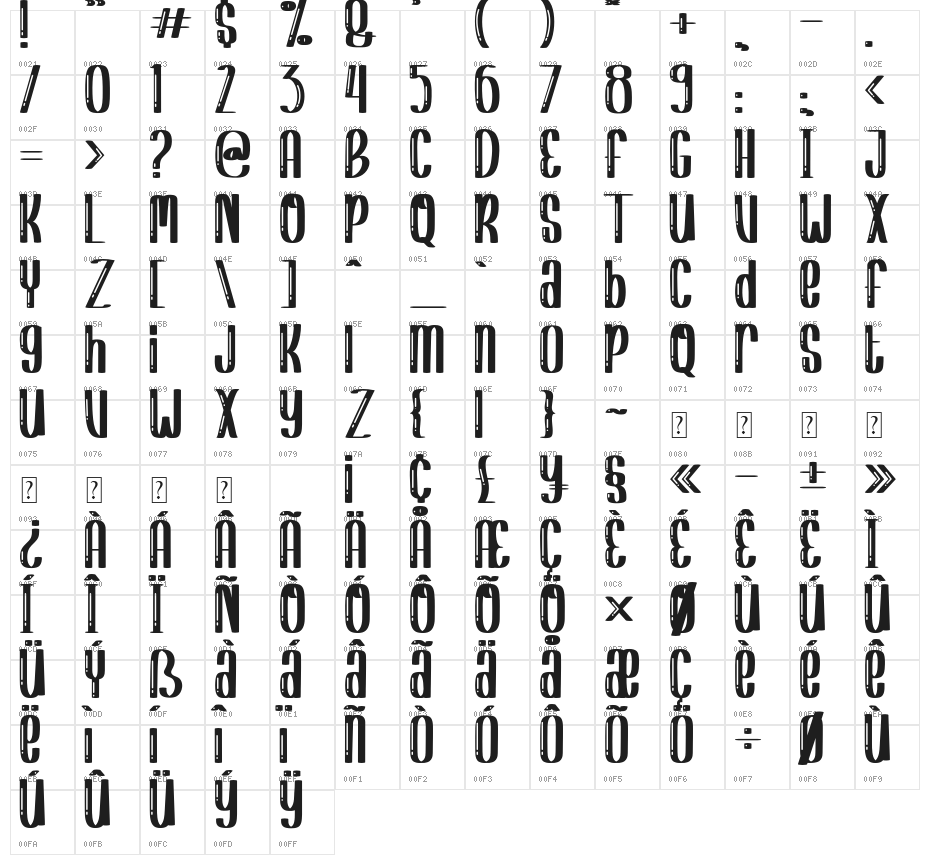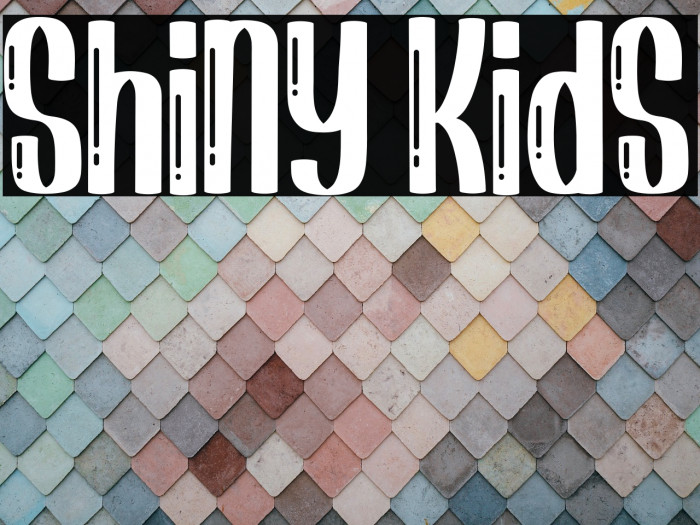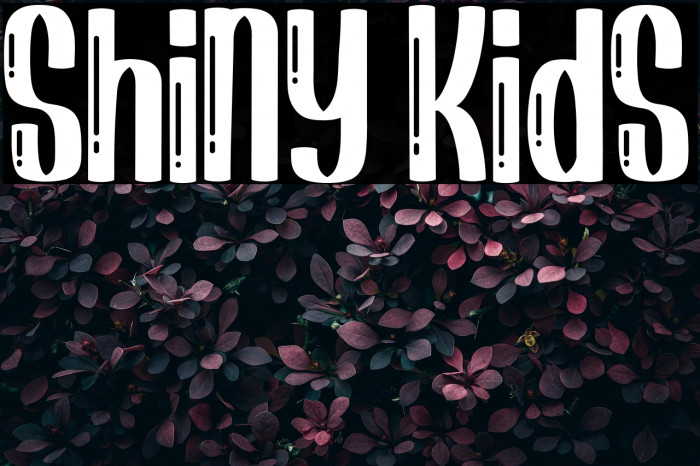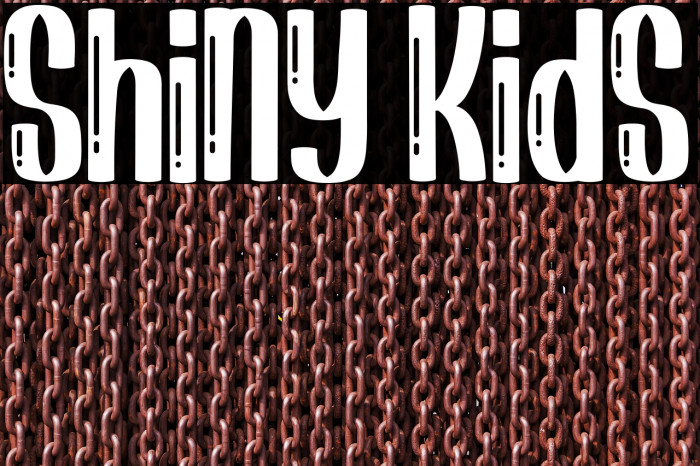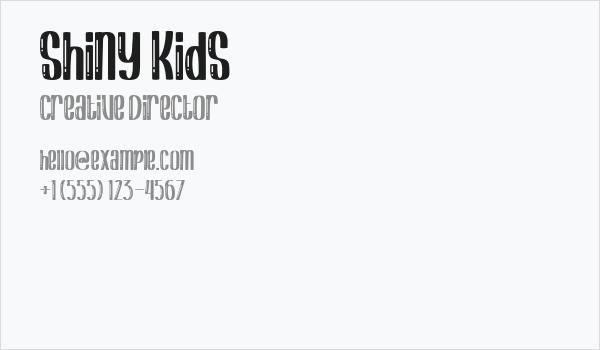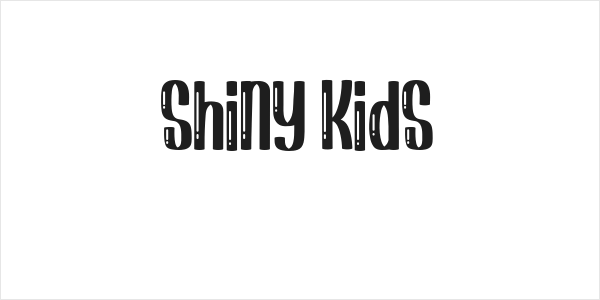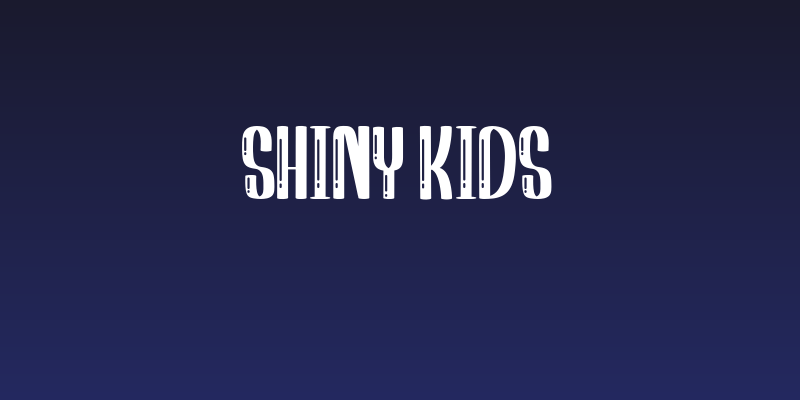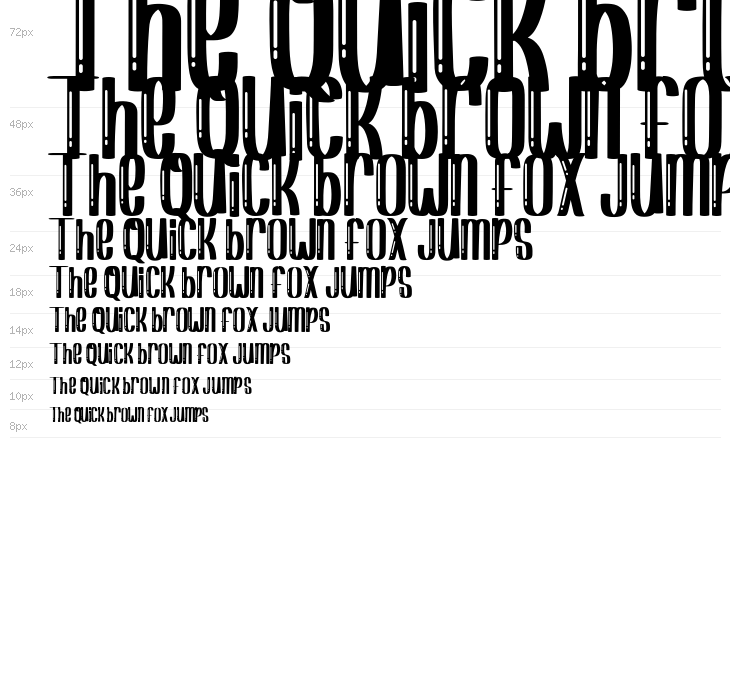
Shiny Kids Font
Shiny Kids Description
This playful and bold font features a unique design with cut-out details that give it a whimsical and eye-catching appearance. The characters are tall and narrow, with rounded edges and a consistent stroke width that adds to its charm. The uppercase and lowercase letters maintain a cohesive style, while the numbers and special characters complement the overall look. This font exudes a sense of fun and creativity, making it ideal for projects that aim to capture attention and convey a lively message.
| Proposed Projects | Ideal for children's book covers, playful branding, party invitations, and creative posters. |